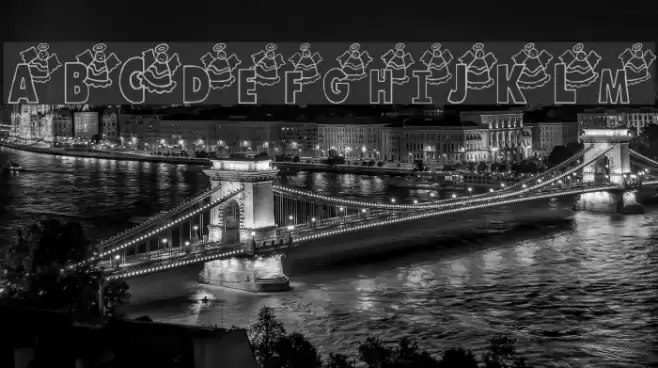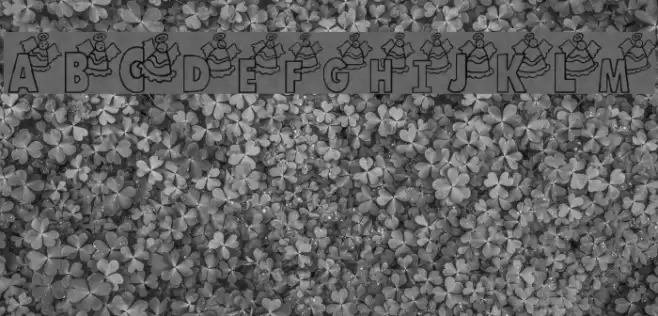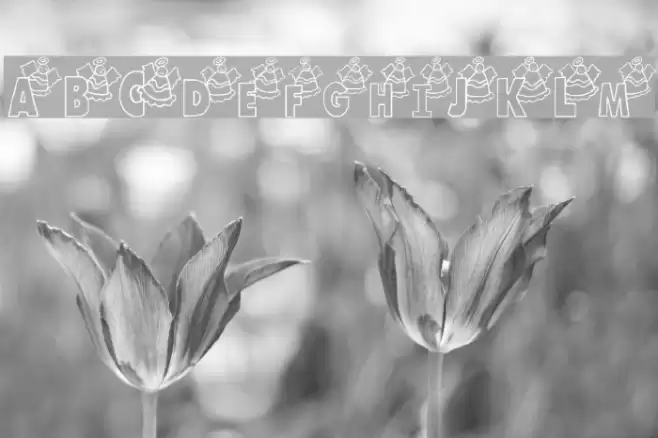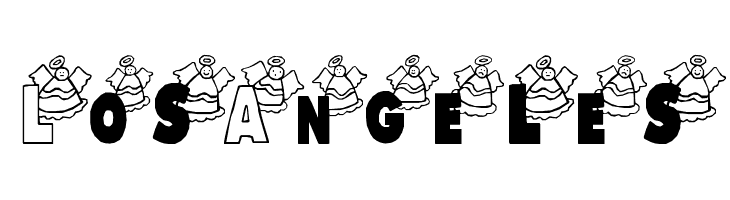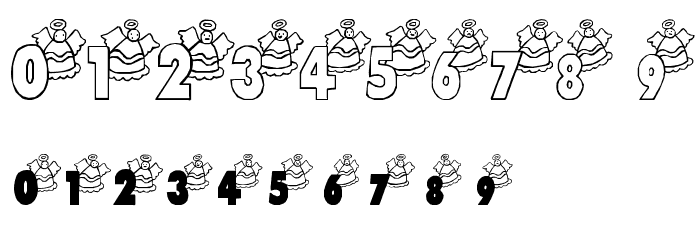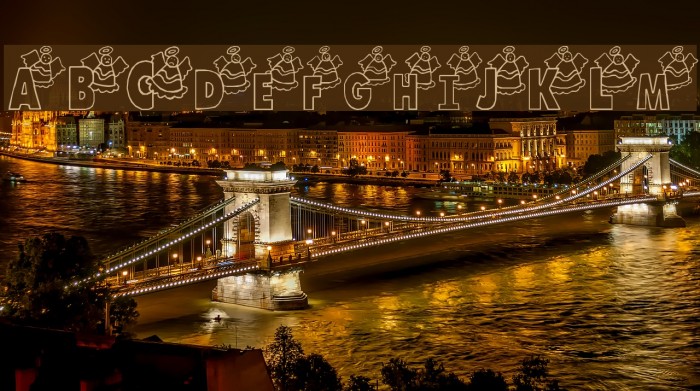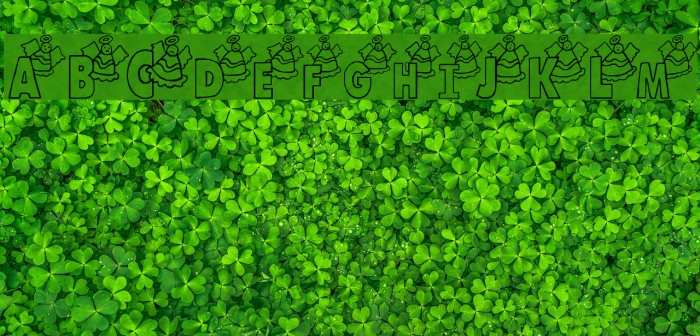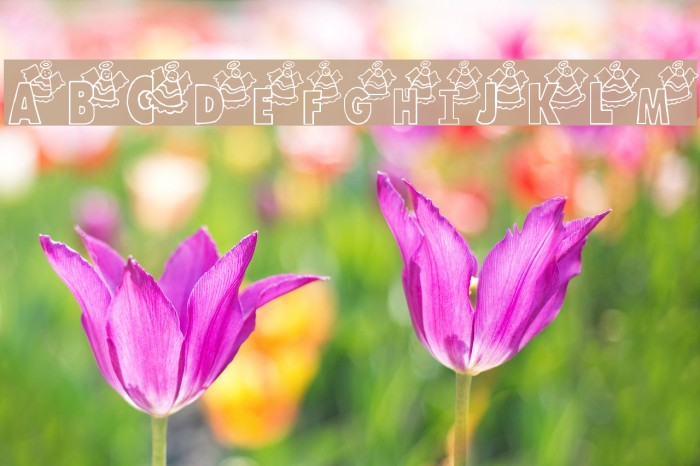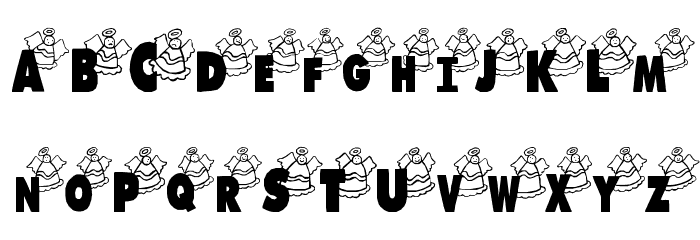
LosAngeles Font
LosAngeles Description
This decorative font features bold, uppercase letters with a playful and whimsical character. Each letter is accompanied by a cartoon-like figure, adding a unique and fun element to the design. The font has a strong presence due to its bold weight, making it suitable for eye-catching headlines or creative projects. The characters are well-defined with a consistent stroke width, providing a clean and structured appearance. The addition of the cartoon figures gives it a lively and animated feel, perfect for projects aimed at children or for use in festive and lighthearted contexts.
A bold, decorative font with cartoon figures, ideal for playful and creative designs from Uncategorized fonts.
- Proposed Projects: This font is perfect for children's books, party invitations, playful branding, or any project that requires a fun and whimsical touch.
- Overall Style: Playful, Whimsical
- Use Case: Headlines, Logos, Creative projects